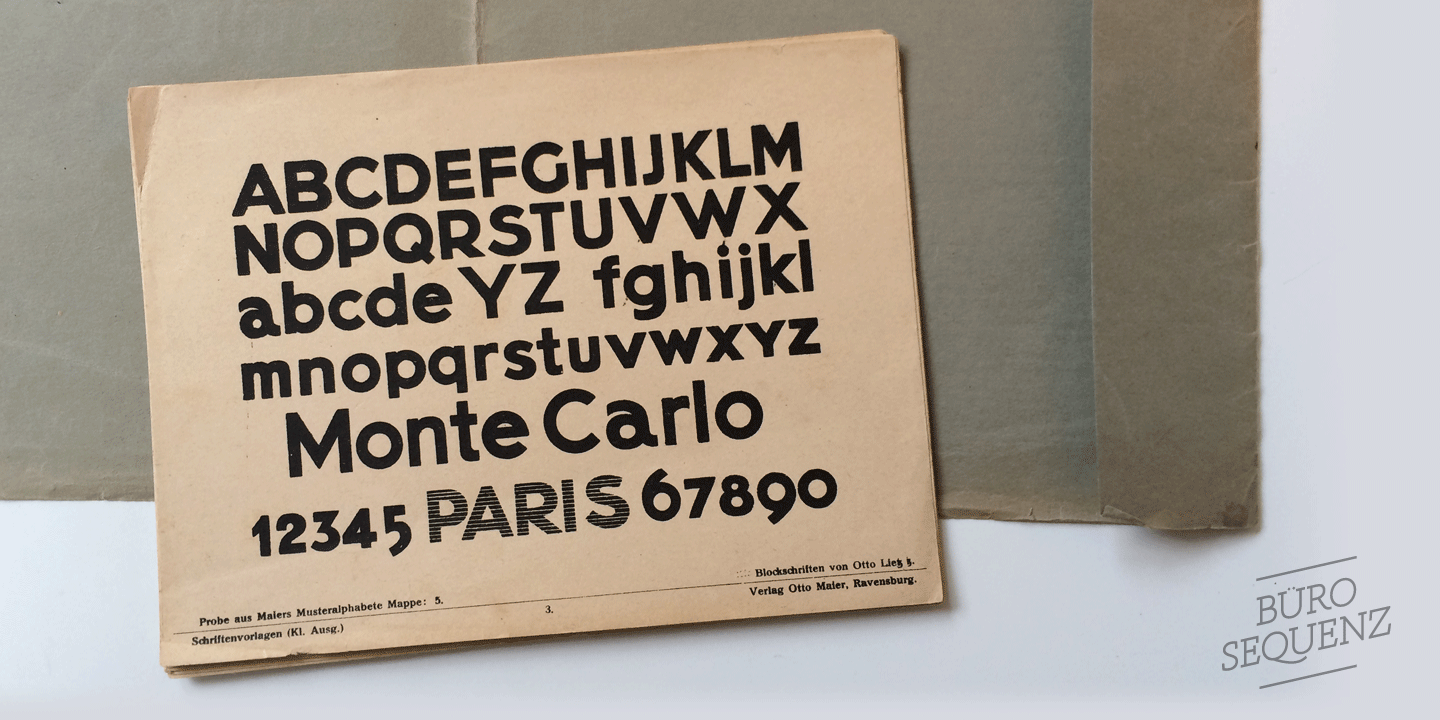
Lietz Block
Lietz Block is a display sans font published by Büro Sequenz.
We discovered this typeface on a flea market in Switzerland inside a German ‘Musteralphabete’ booklet published in the 20ies. Uneven edges give this bold, geometric typeface a soft, hand crafted feel.
Lietz Block works especially well for headings, posters and advertisements.